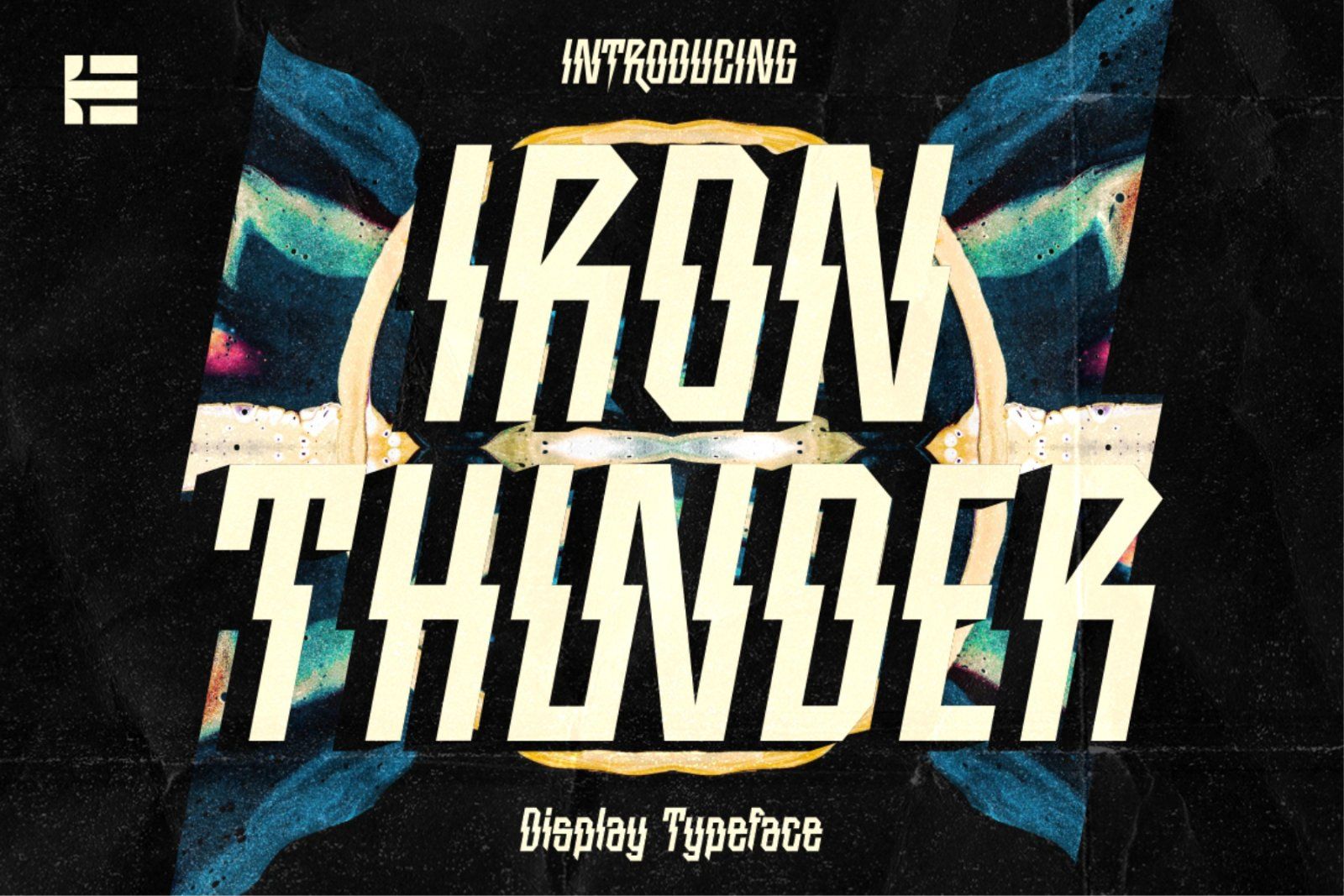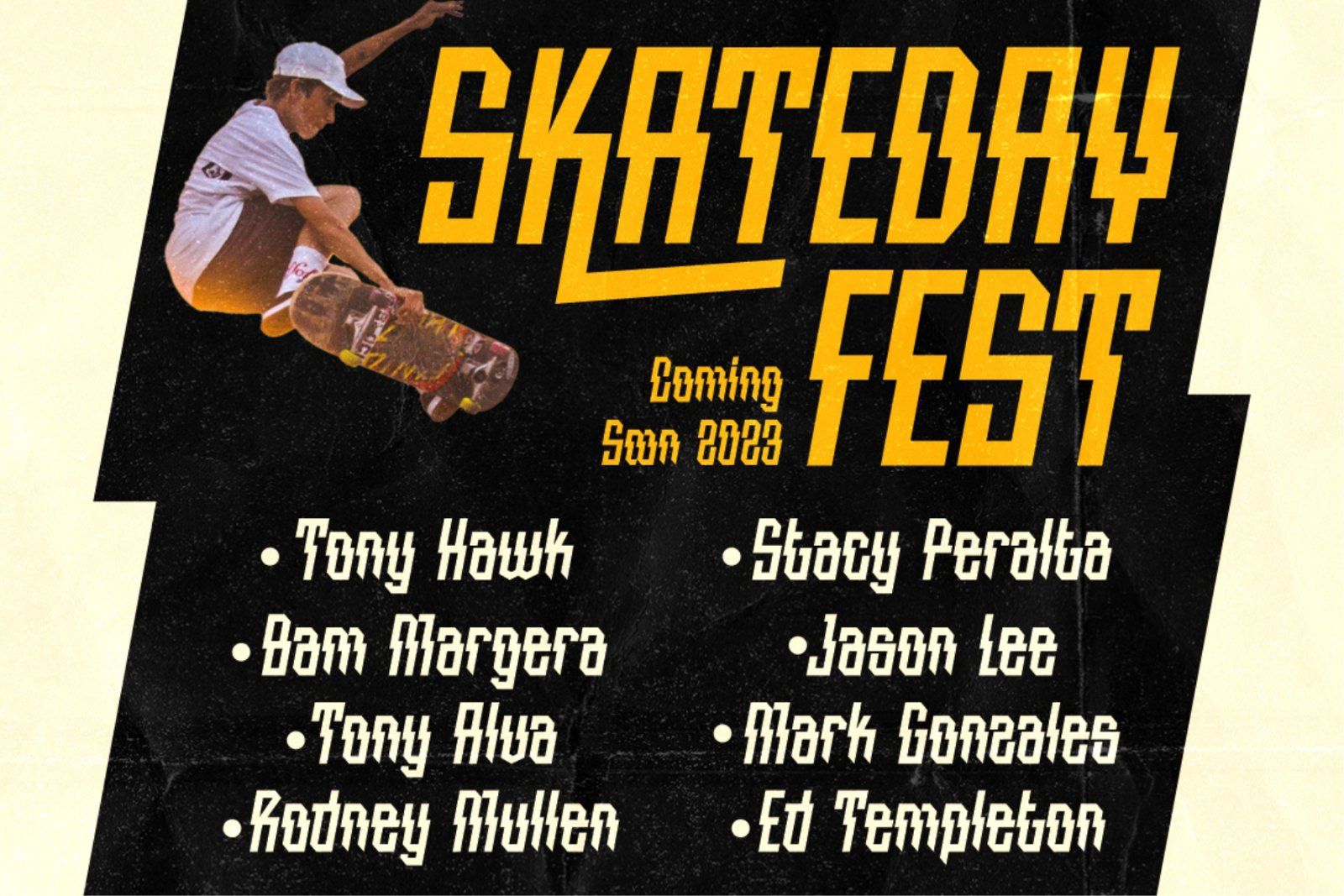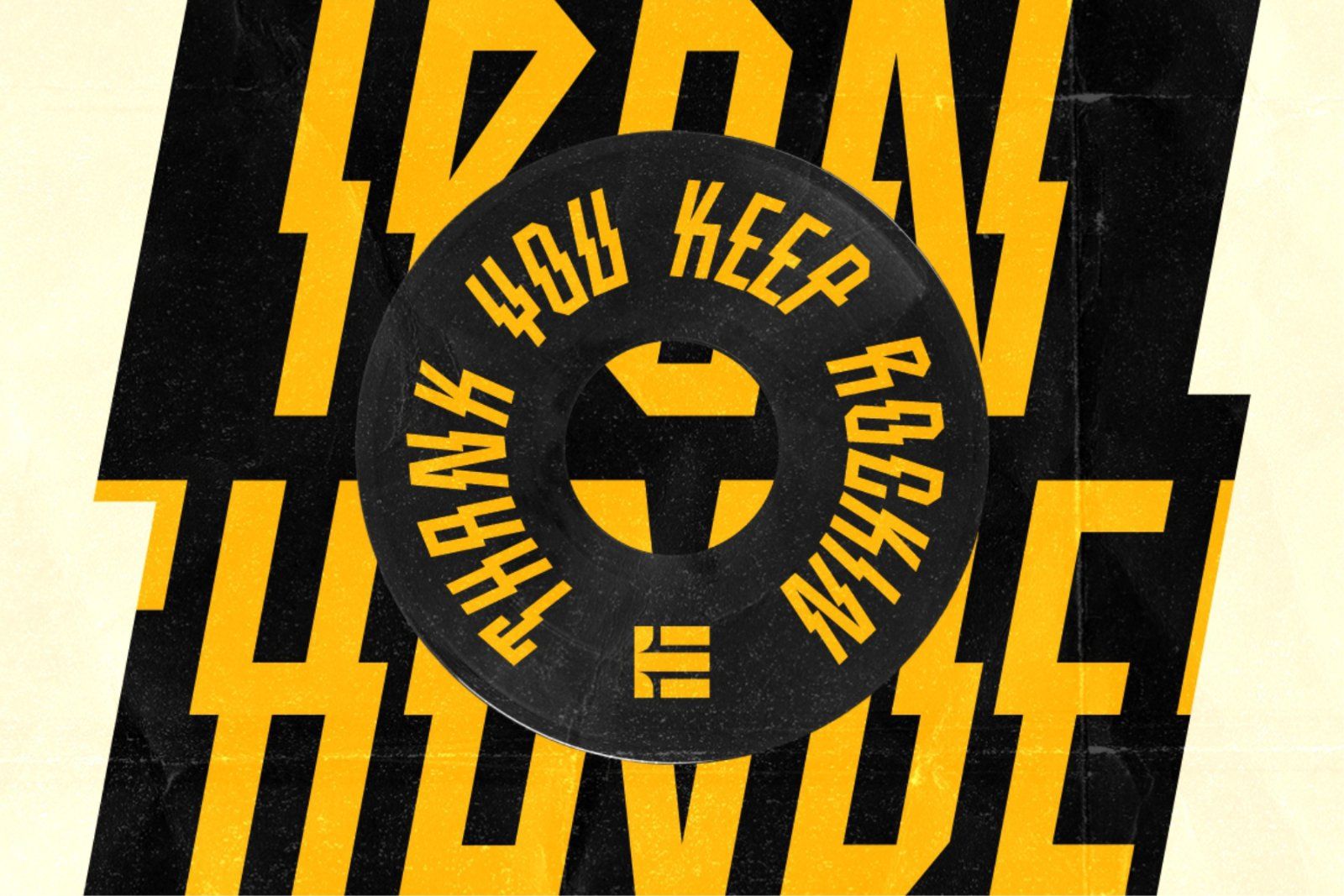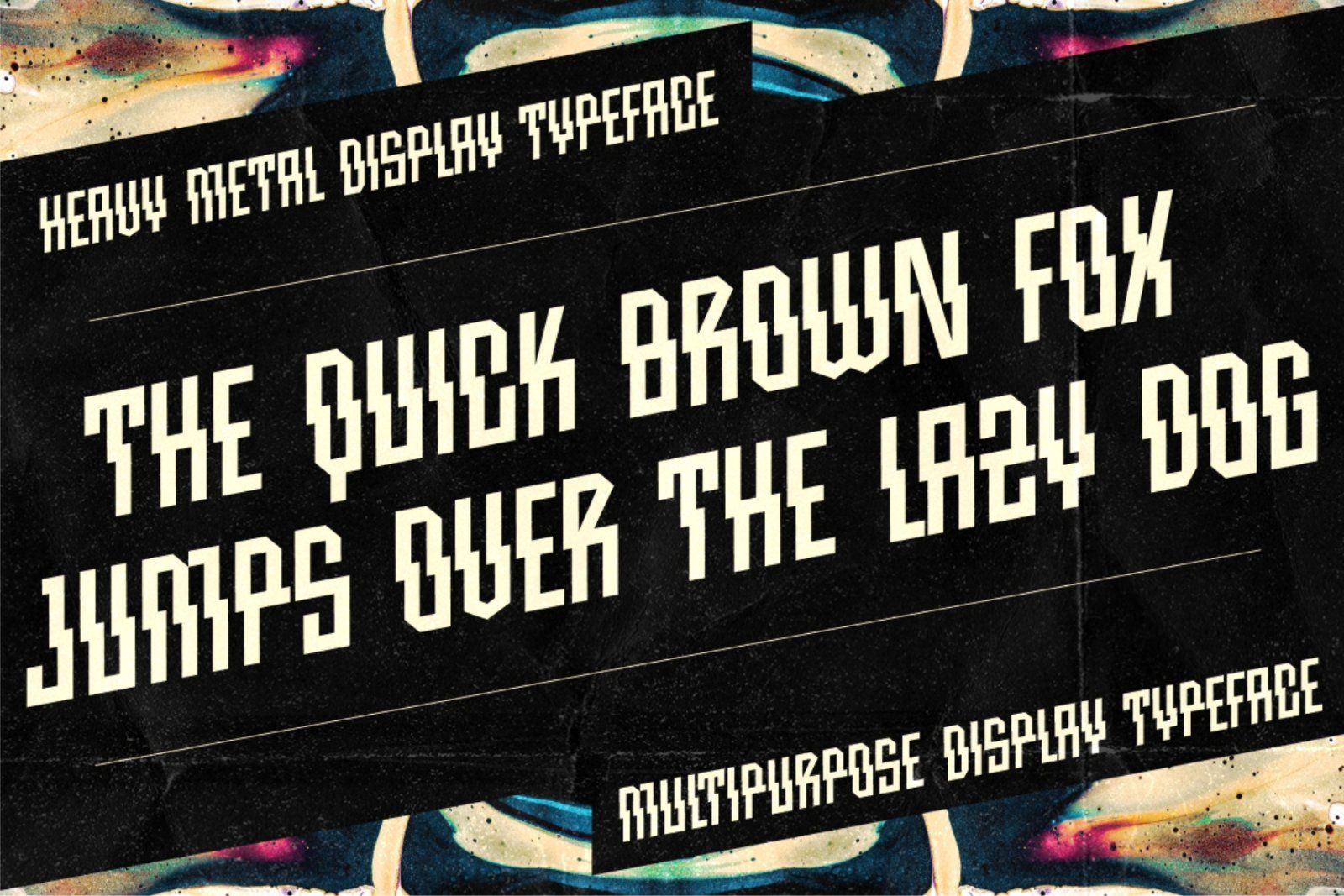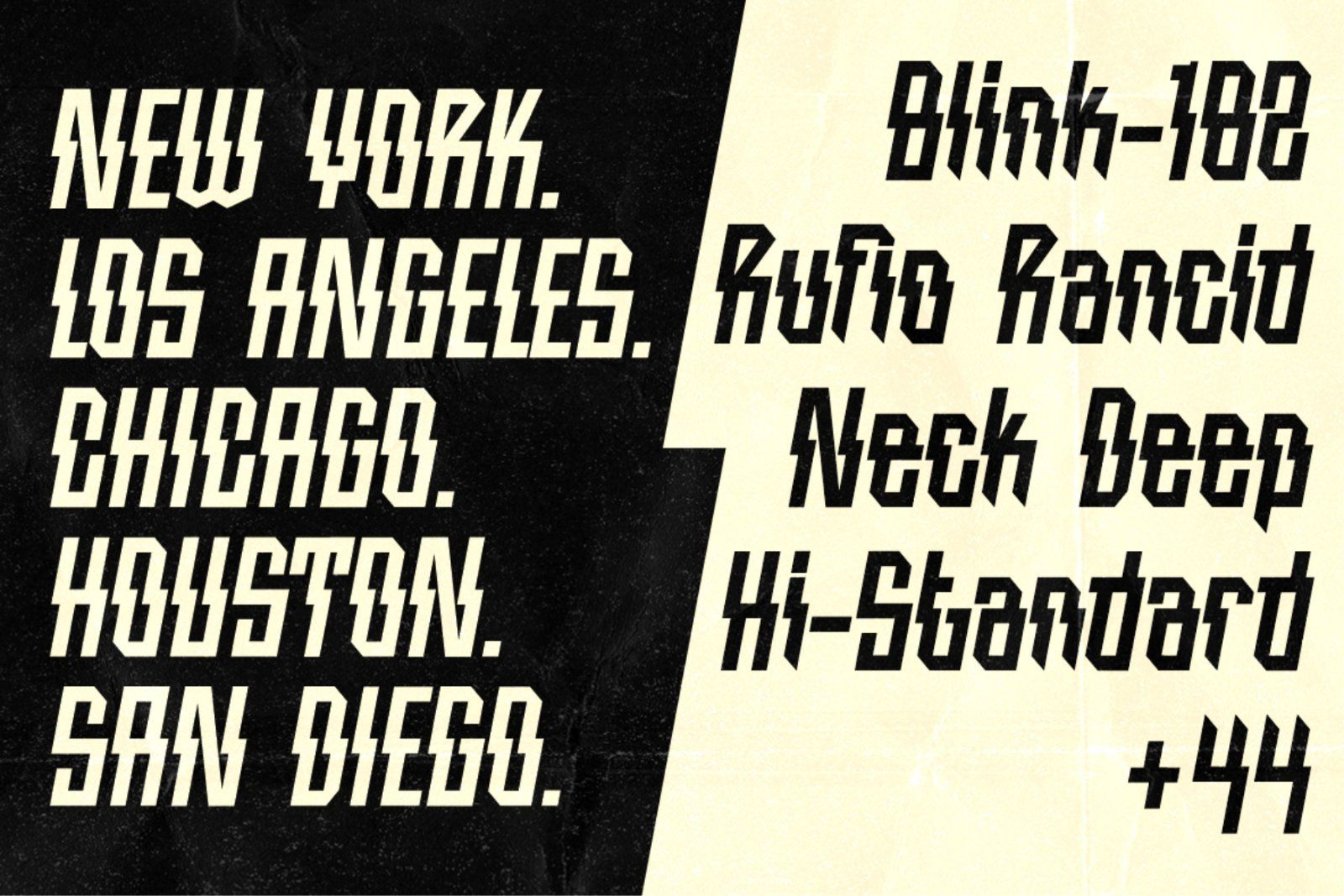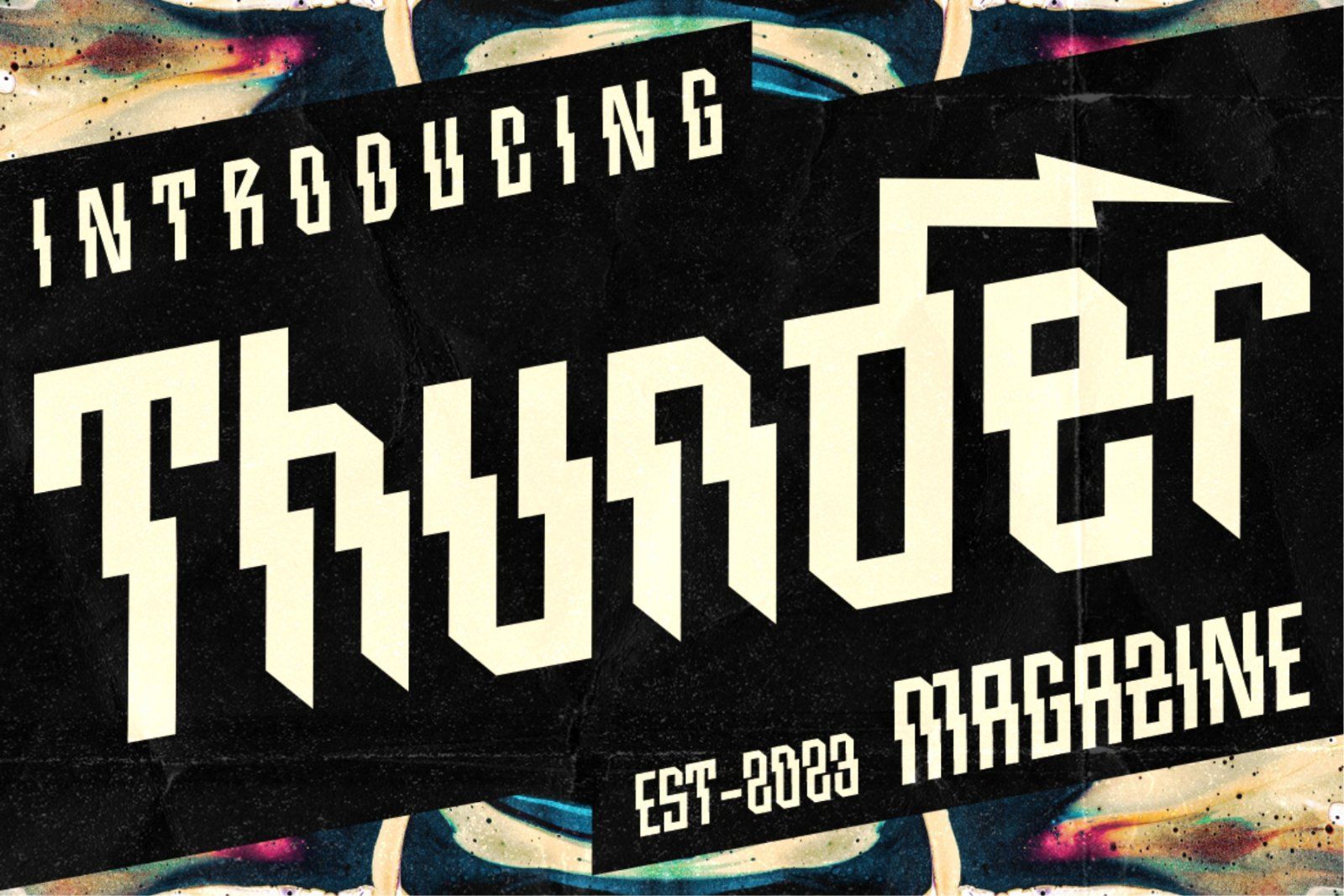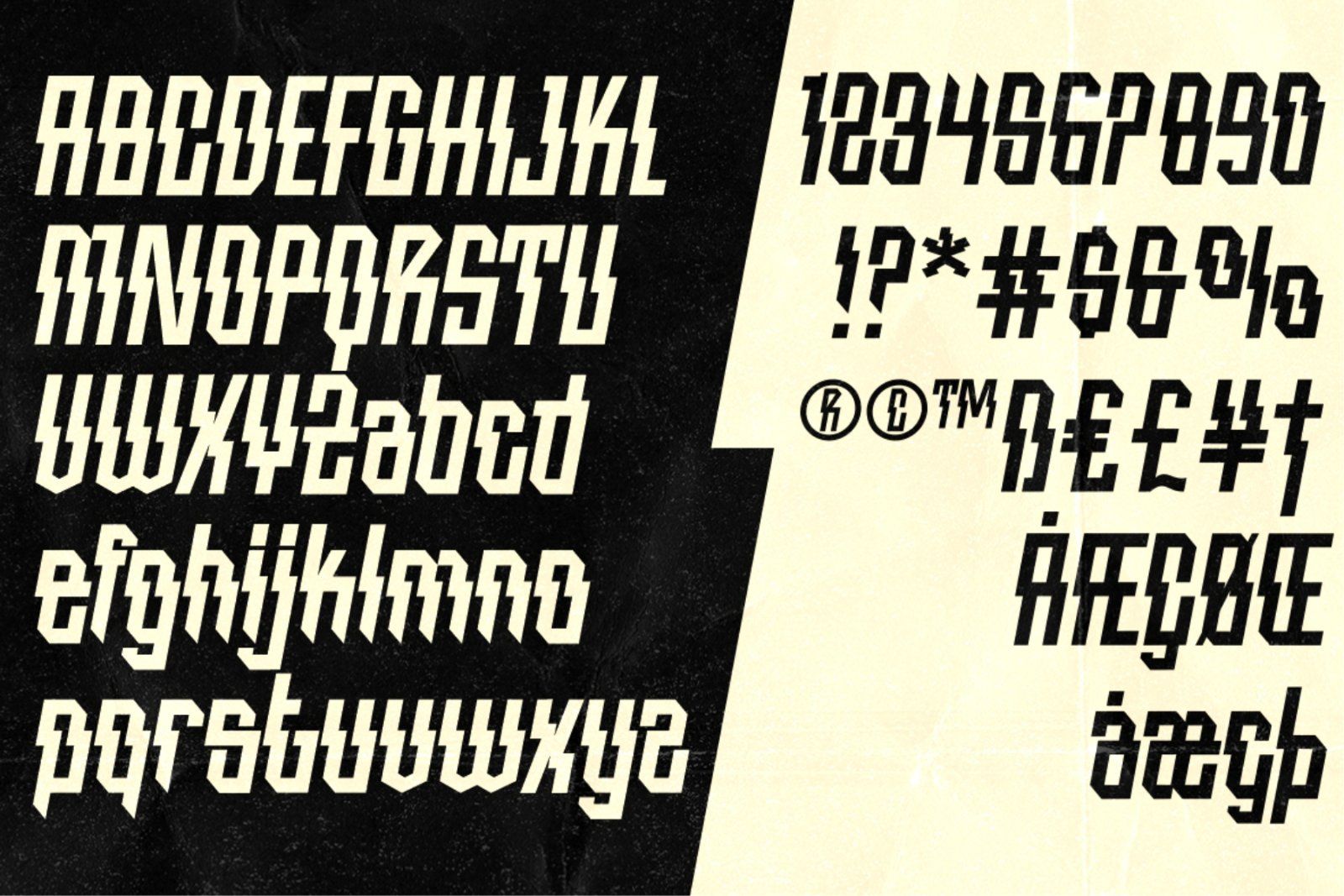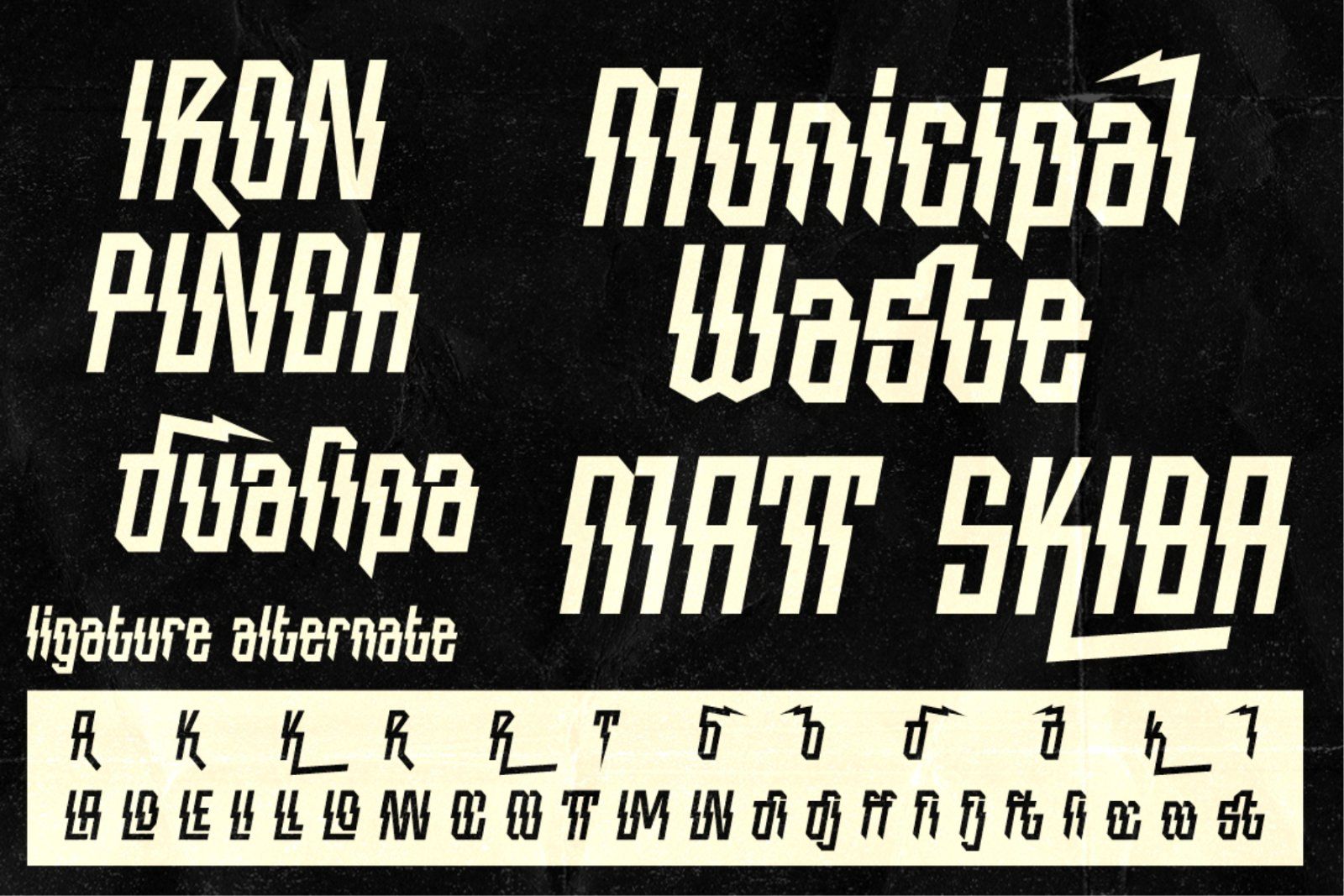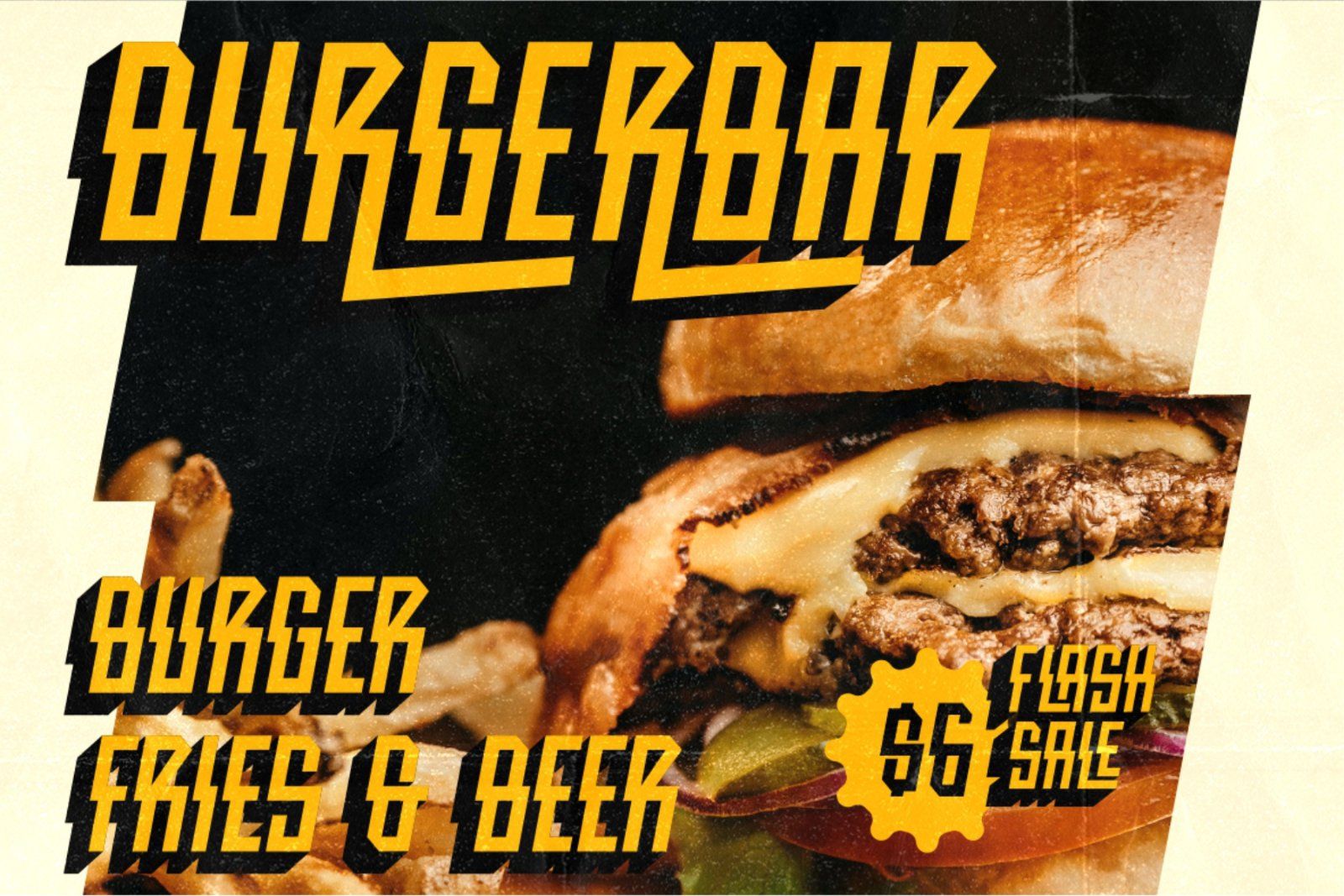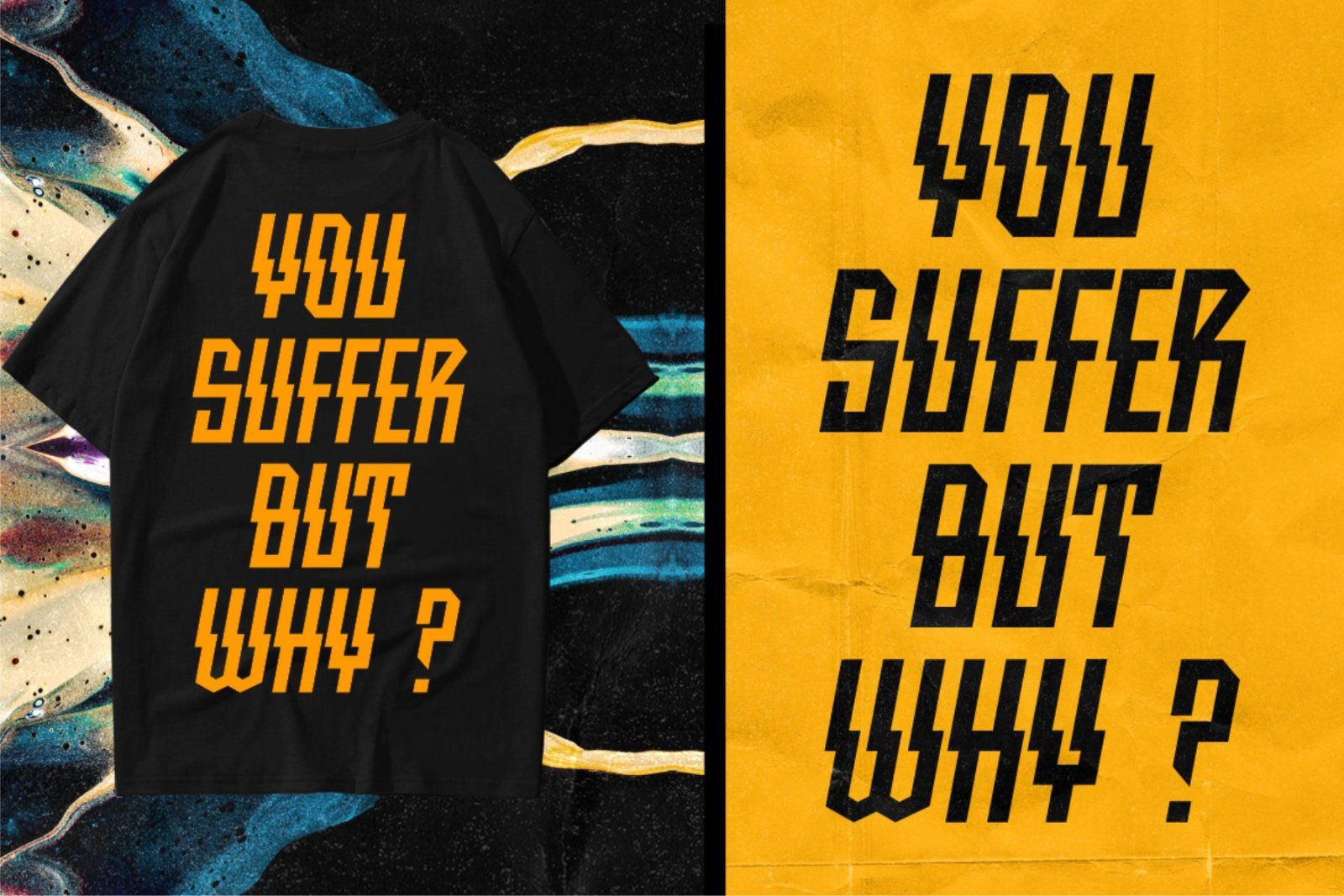
Iron Thunder is an unique condensed display font inspired by thunderbolt. You can use this font in retro, vintage, and hipster designs. This font also has alternate and ligature features.